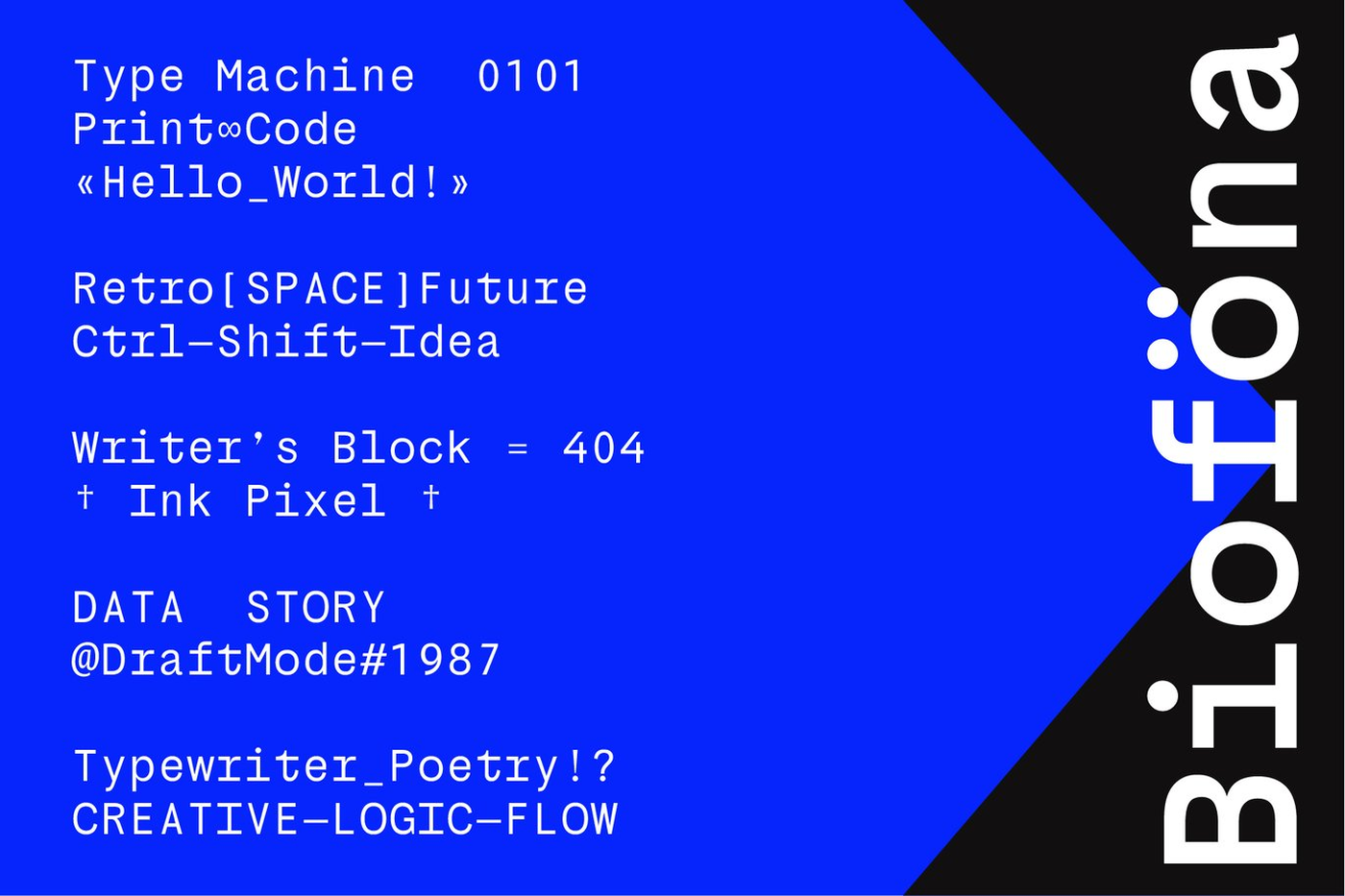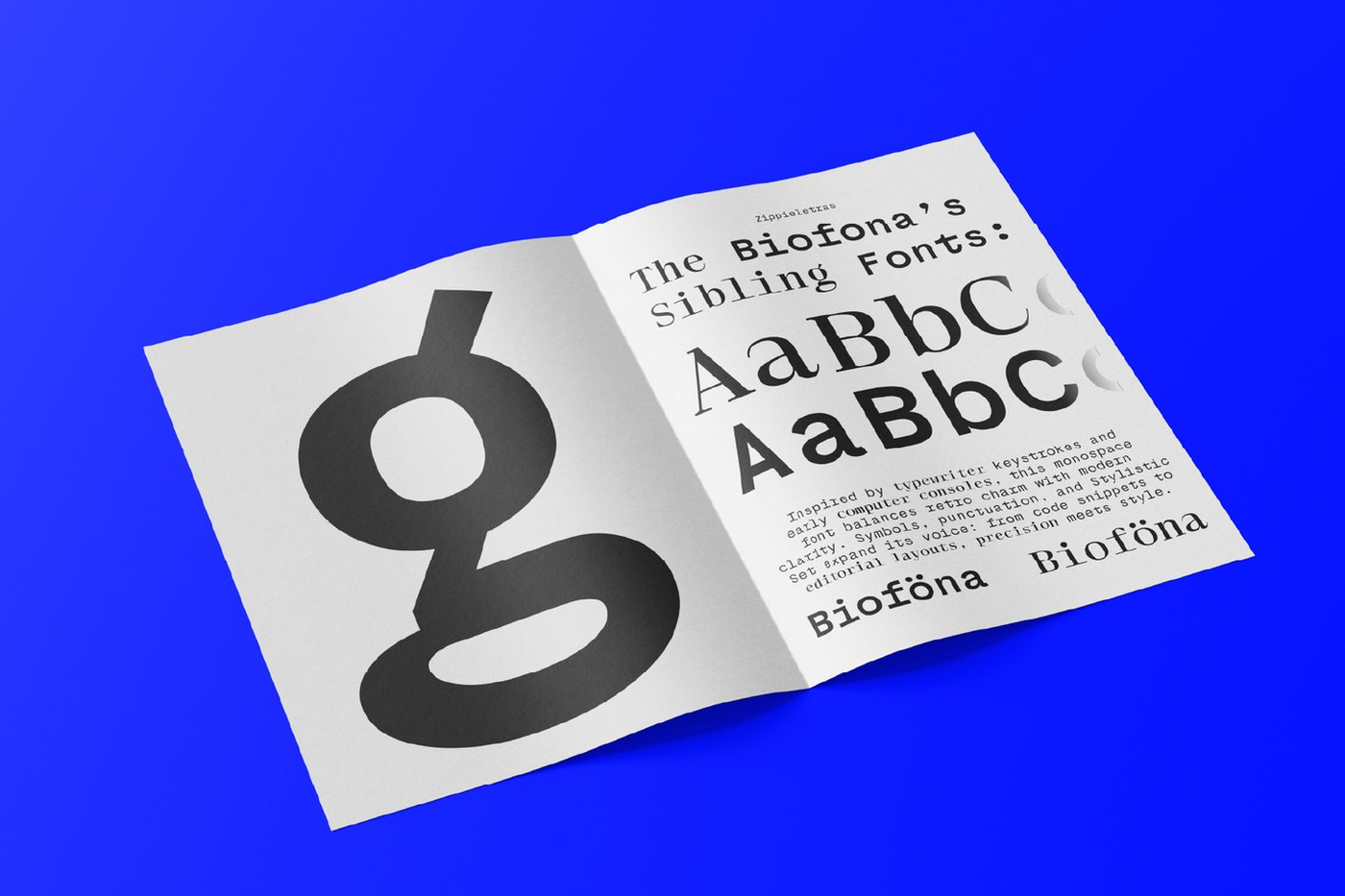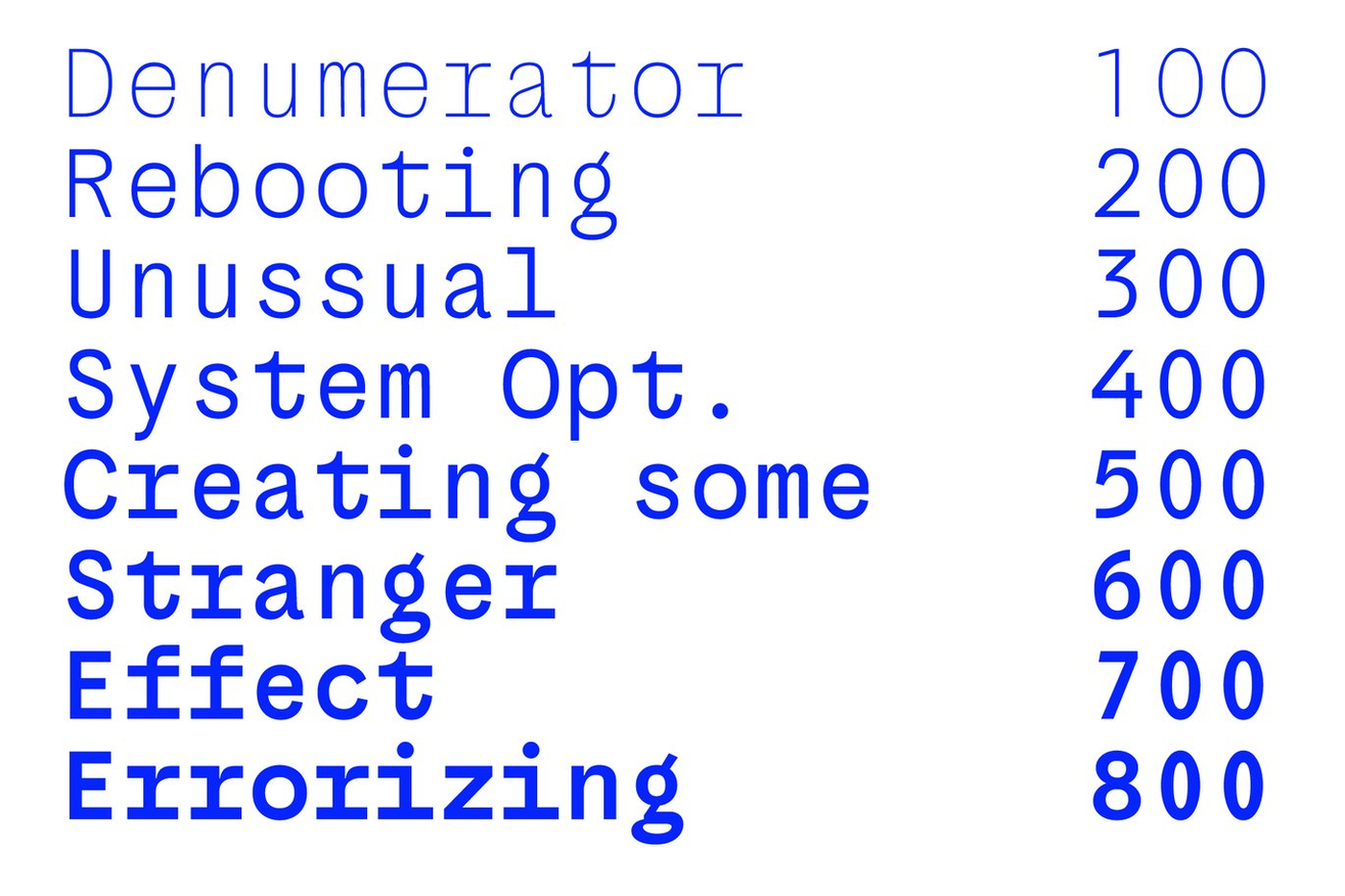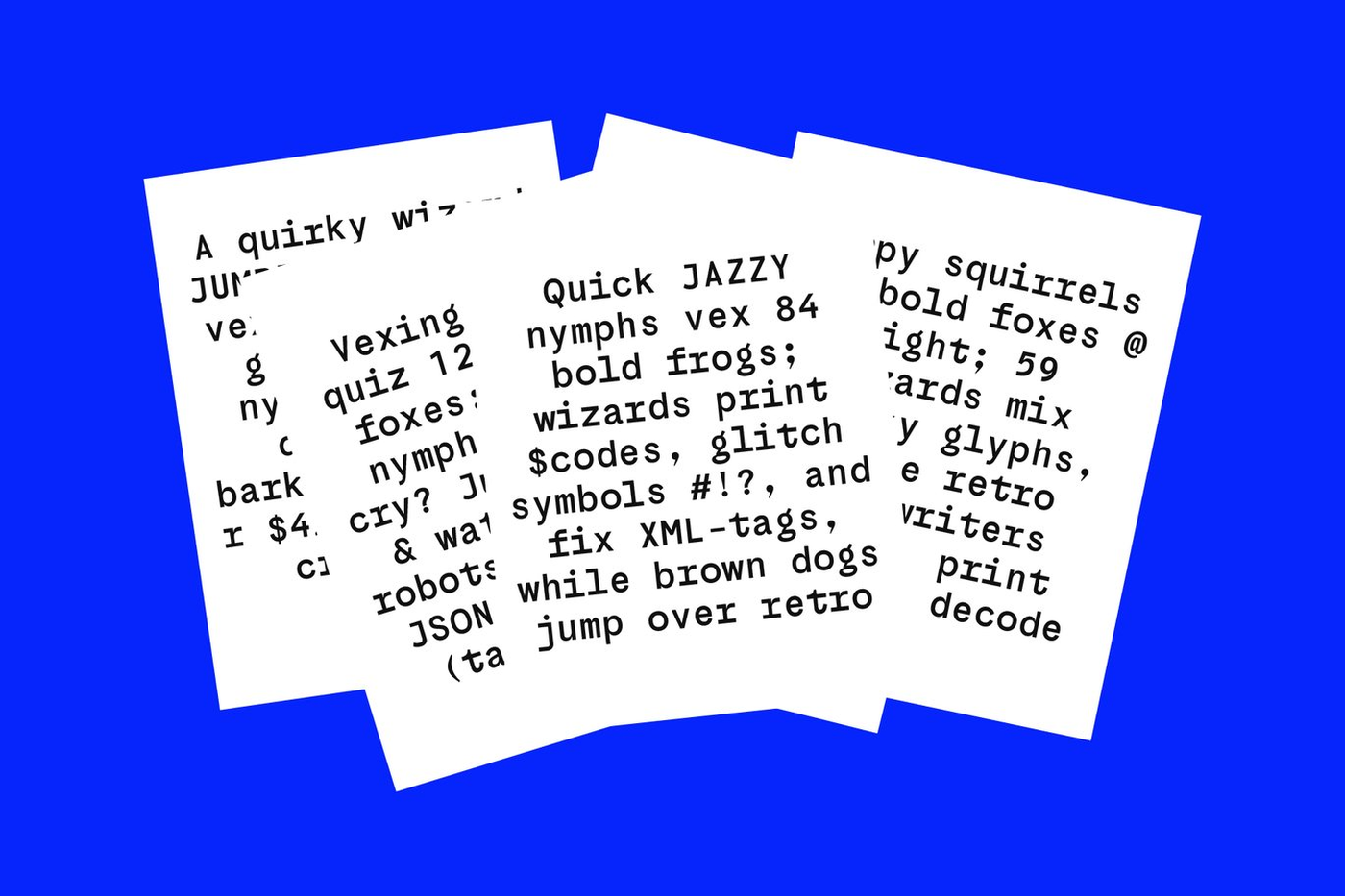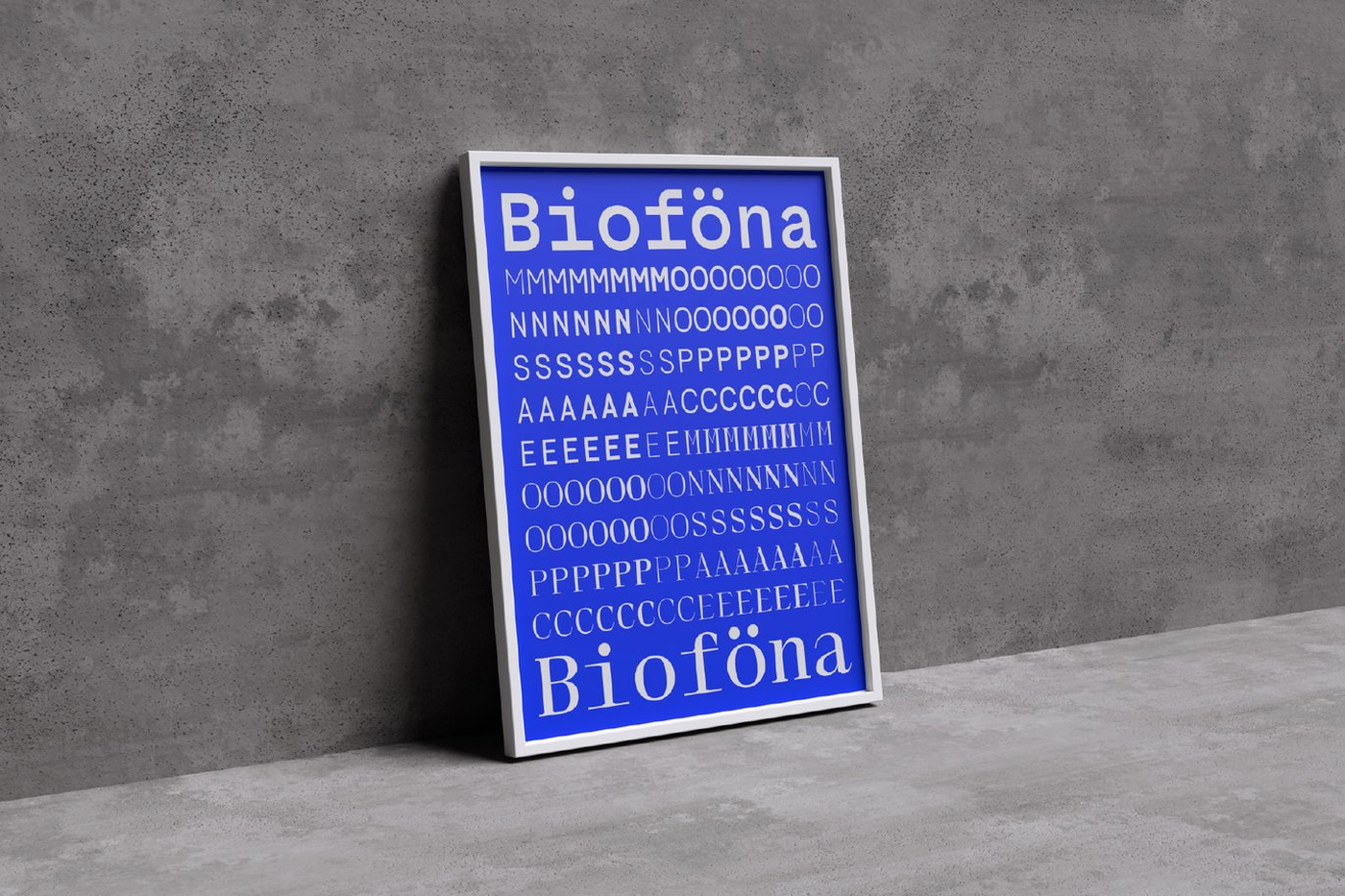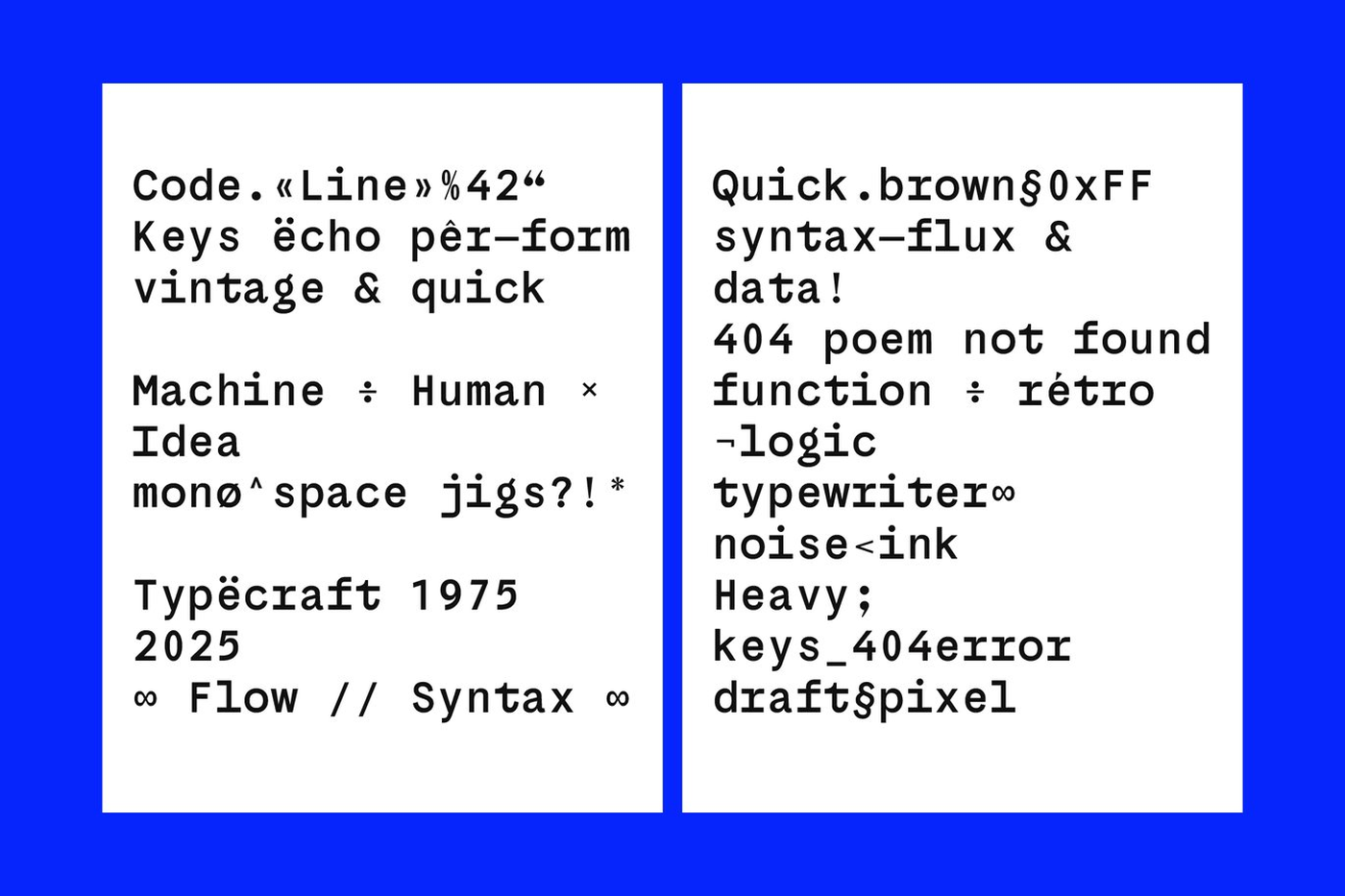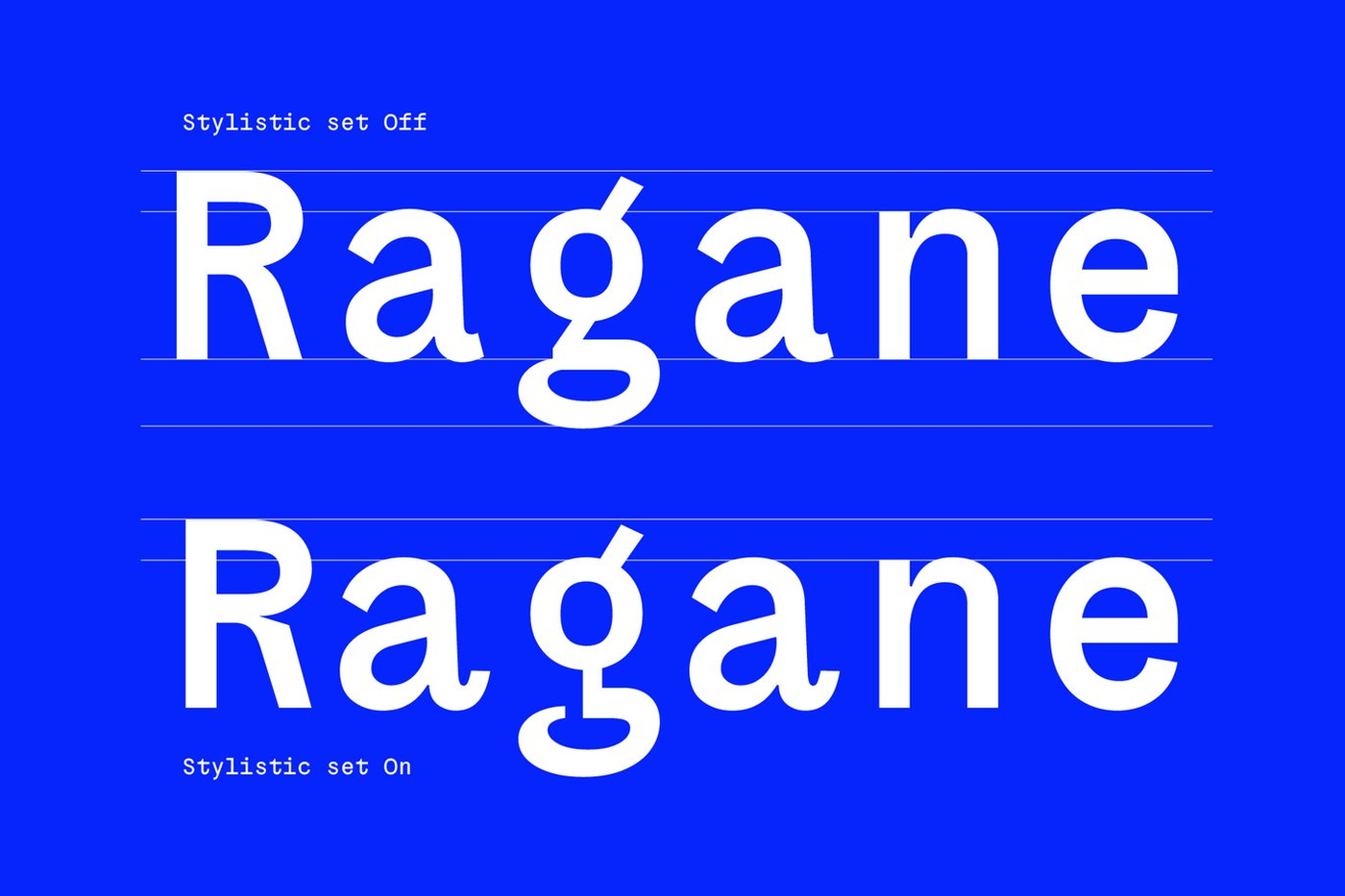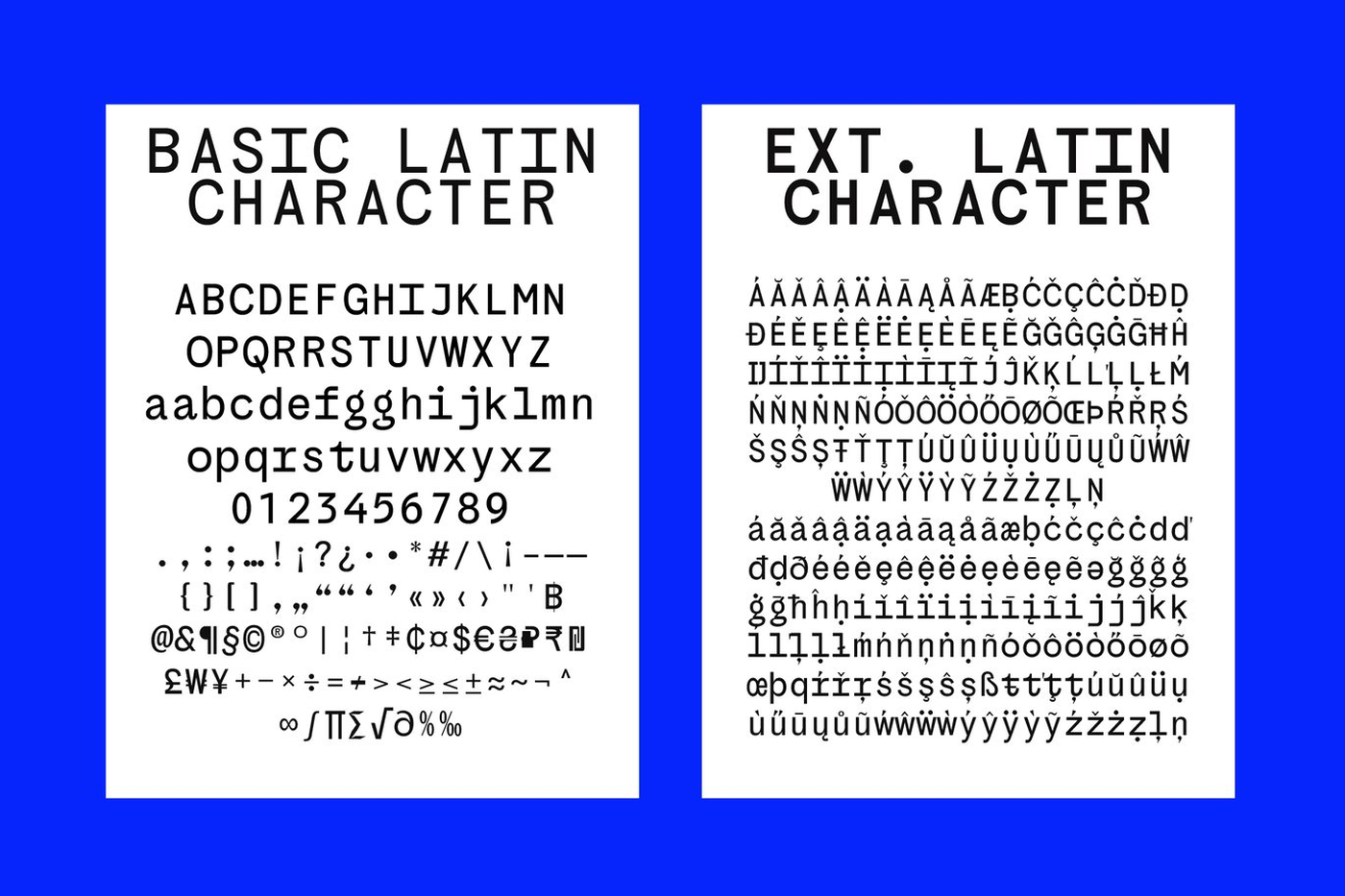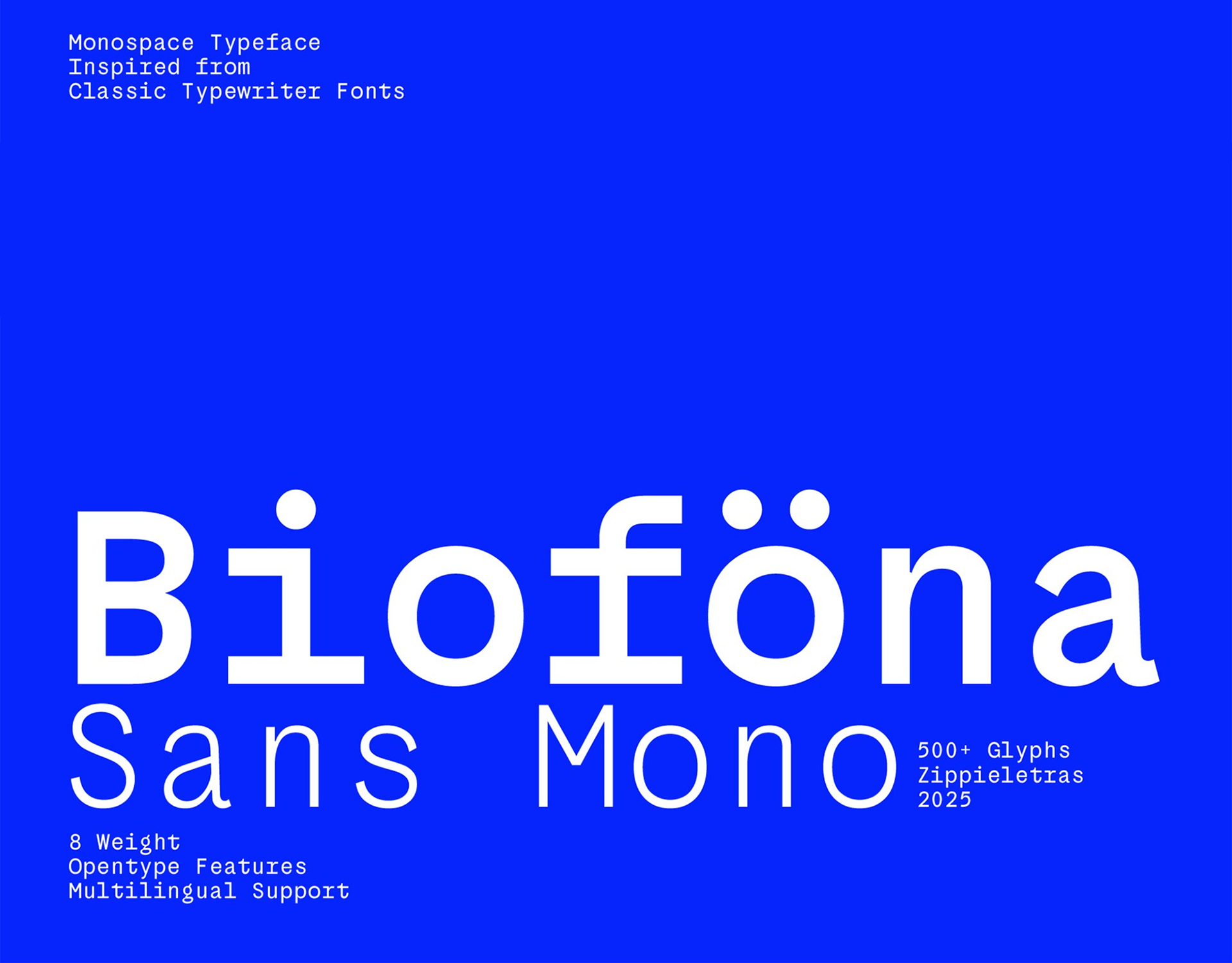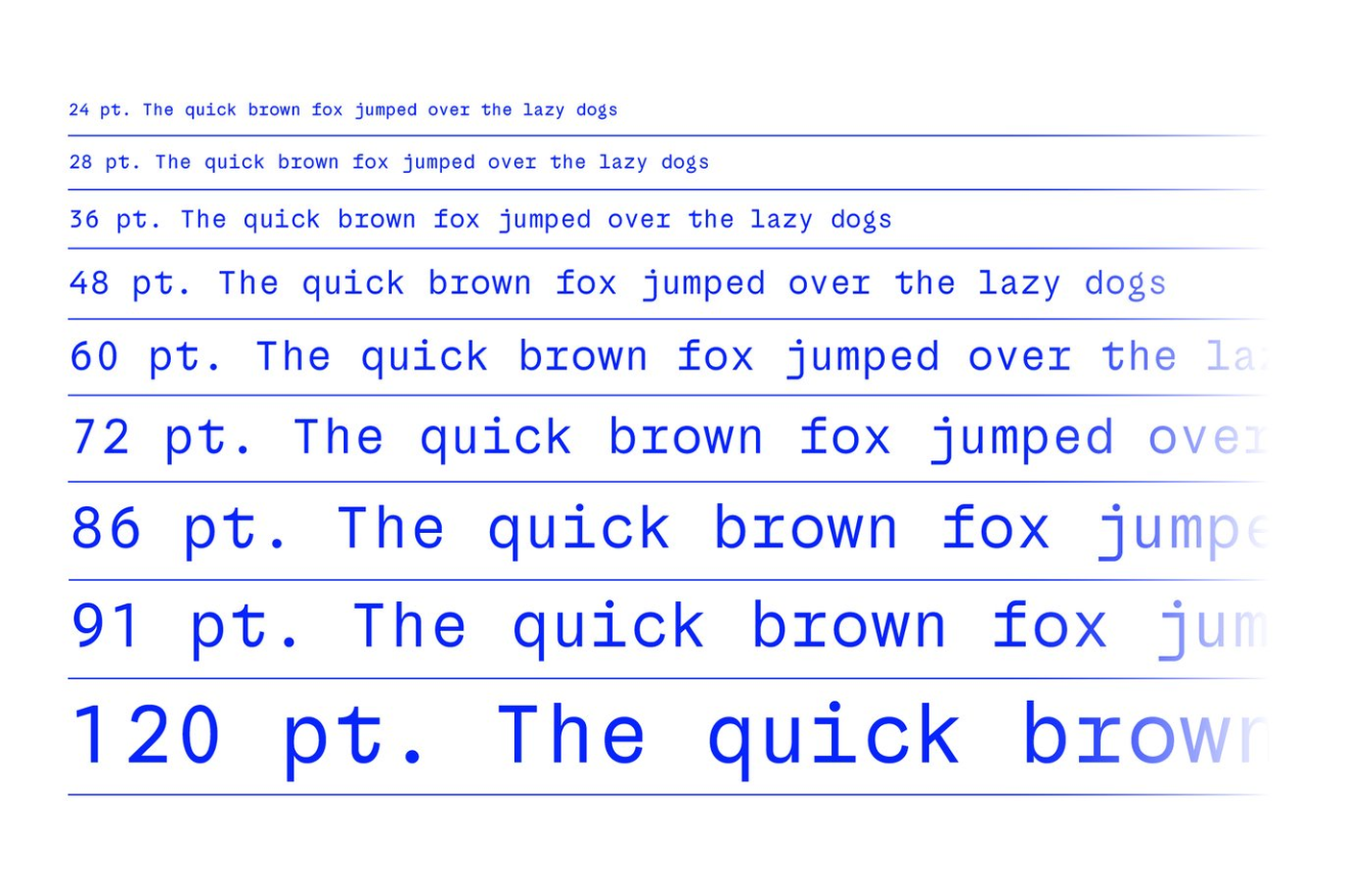
Biofona - Sans Mono Font
Biofona is a modern sans serif crafted for clarity, functionality, and bold brand identity. Designed with smooth proportions and minimal contrast, it delivers a timeless aesthetic that adapts beautifully across logos, websites, posters, signage, and editorial layouts. Its distinctive letterforms balance geometric precision with humanist warmth, making it suitable for both corporate systems and creative campaigns. Characters like R, a, g bring subtle uniqueness, while Stylistic Set 01 (SS01) offers sleek alternatives to give your typography a more modern edge. Combined with ligatures, Biofona Sans provides designers with powerful flexibility to shape memorable brand identities.
Designer: Zippieletras
Font: Biofona